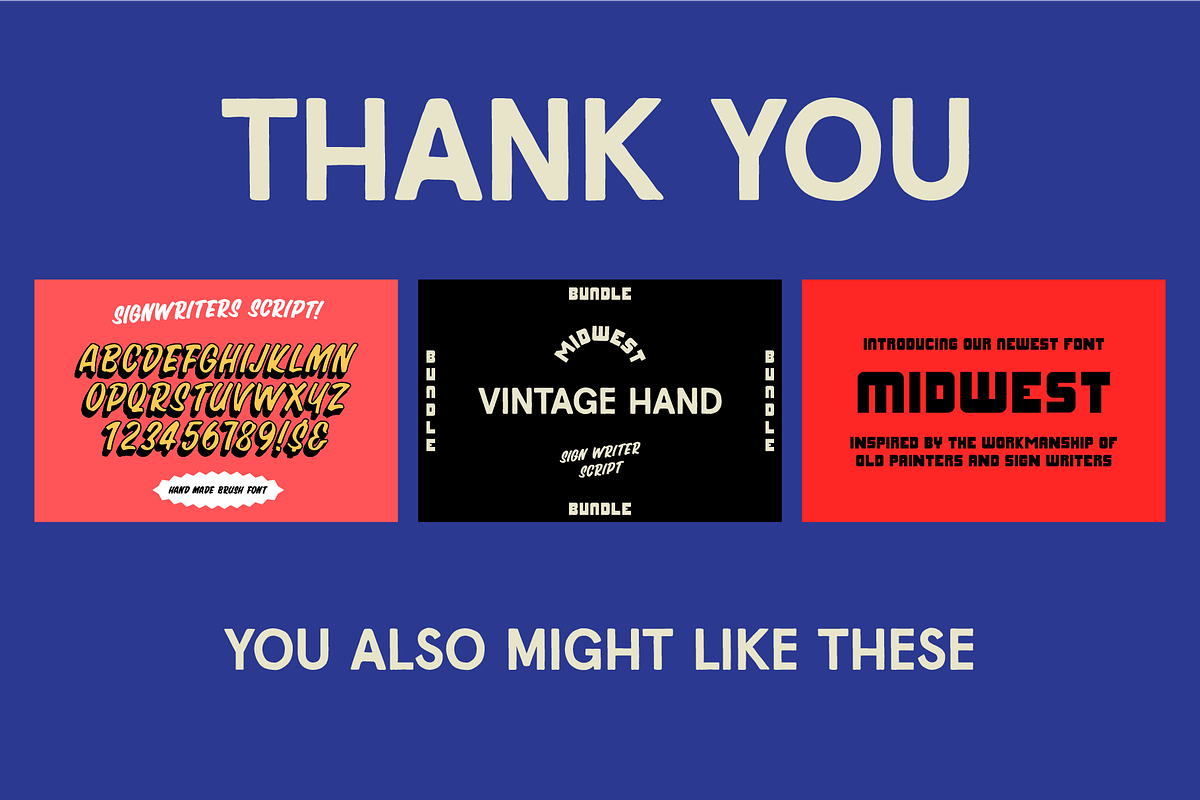
Vintage Hand
Introducing Vintage Hand, a vintage-inspired typeface embodying the hand-drawn elegance of traditional sign painting. Crafted with meticulous detail, it effortlessly combines timeless aesthetics with modern versatility.
Vintage Hand stands out with its distinctive personality, offering a genuine, one-of-a-kind feel that complements various design applications. With excellent readability and a comprehensive character set, this font brings a touch of nostalgia and authenticity to your projects, making them extraordinary visual experiences.